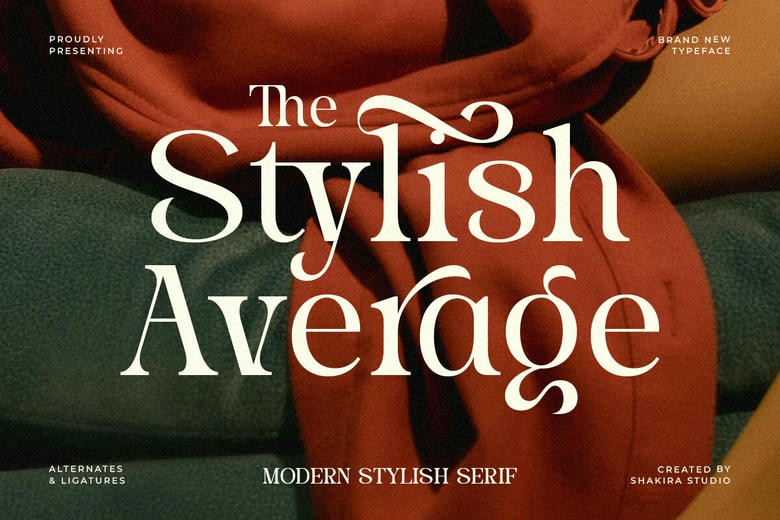
Stylish Average Font
Stylish Average Font is a contemporary stylish serif typeface designed to be used in stylish branding and sophisticated editorial design. Its rounded lines and harmonious contrast produce a high-end typographic sound that can be used in luxury logos and high-quality identity.
Stylish Average is perfect in fashion branding, beauty packaging, magazine layouts, and boutique logos, providing a graceful appearance with contemporary flexibility. Created to add a touch of chic to modern typography.
Stylish Average Serif Font